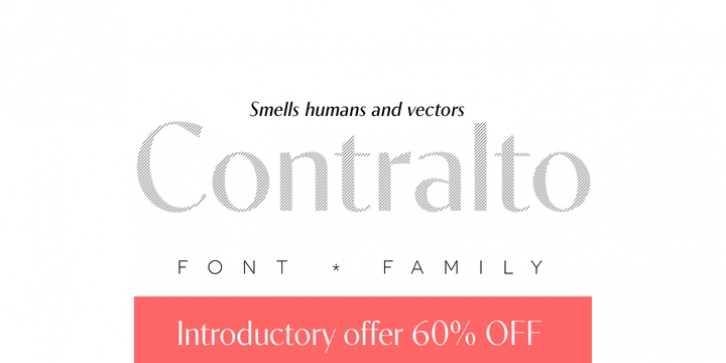
Contralto comes in 40 styles: 5 weights × italics × 4 optical sizes, to help optimizing contrast and readability. However, you can also use them to fine tune the mood of your graphical composition.
Contralto's generous character set and Opentype features let you meet the most demanding layout needs and lets your creativity fly!